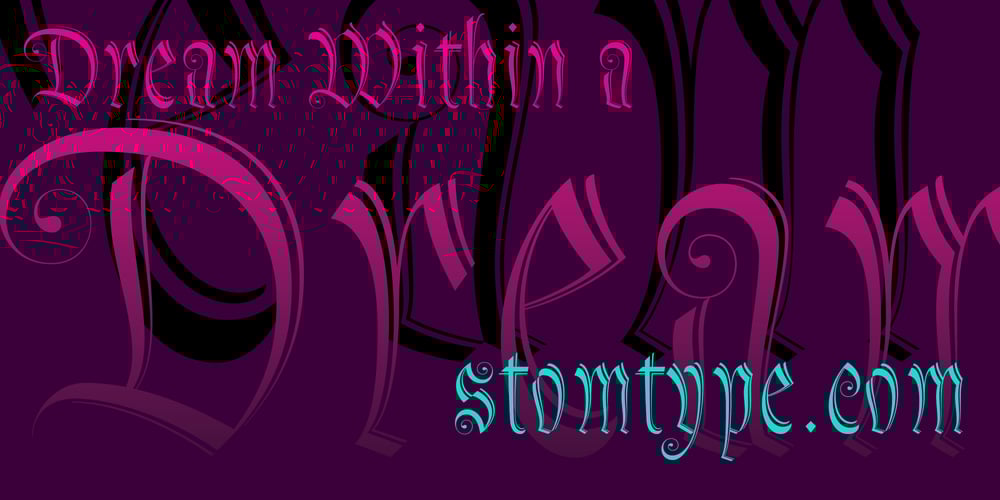
Dream Within A Dream Font Family was designed by František Štorm and published by Storm Type Foundry. Dream Within A Dream contains 1 styles and family package options. Dream Within a Dream was the title of exhibition of Czech art inspired by the work of Edgar Allan Poe curated by Otto M Urban and Veronika Hulíková. Three dozens of artists exhibited their works in the Czech National Gallery in 2020. The cataloguje was printed with the use of the present typeface.Artists took significant interest in Poe’s literary oeuvre only after the writer’s untimely death. This was mainly thanks to the poet Charles Baudelaire who translated Poe’s works to French. As early as in the second half of the 19th century, prominent artists such as Edouard Manet, Odilon Redon, James Ensor and Gustave Doré created remarkable artworks inspired by Poe. Although the first Czech translations of Poe’s woks date to the 1850s, artworks inspired by them only appeared several decades later, at the turn on the 20th century. Poe’s poems and short stories inspired František Kupka and soon after him, Josef Váchal, Jan Konůpek and František Kobliha. Alfred Kubin, a German artist born in Bohemia, made illustrations for the German translation of Poe’s collected stories. Later on, Alén Diviš and František Tichý created further Poe-inspired artworks. Poe was a source of inspiration for Jan Švankmajer and more recently, František Štorm and Jaroslav Róna.